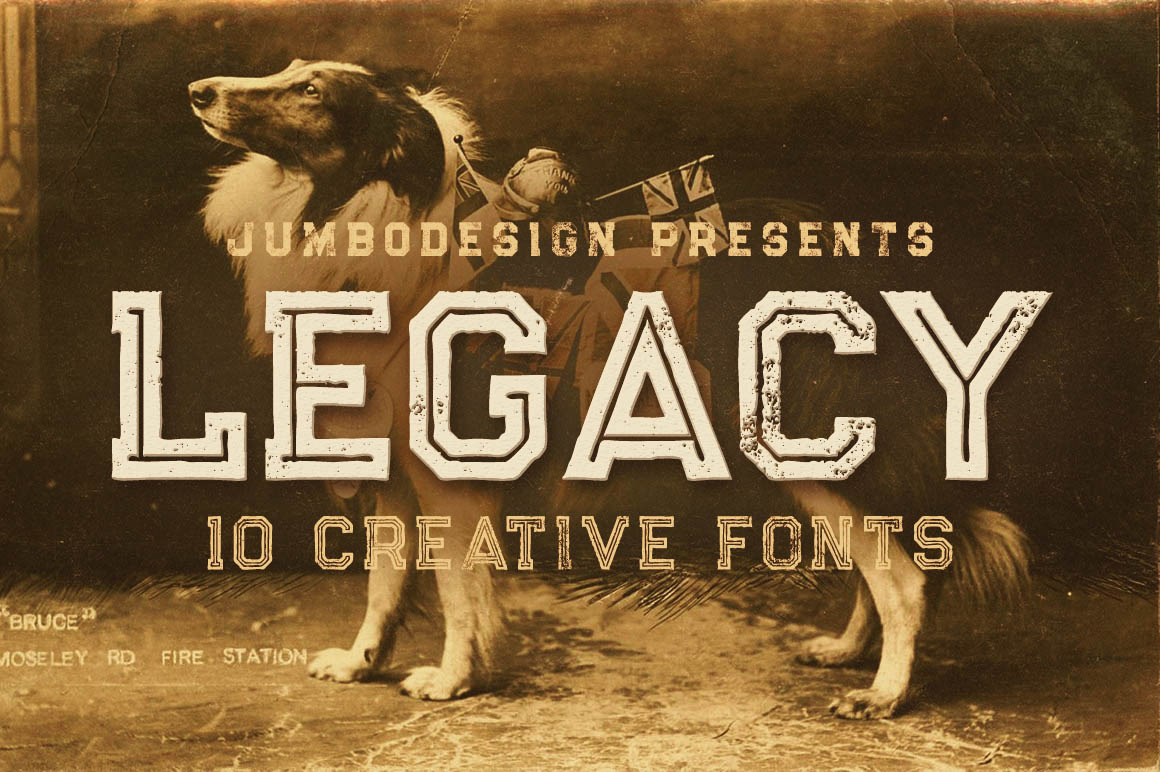
Legacy - Vintage Style Font
Unique and creative vintage style custom font with 10 styles: regular and grunge, inline and inline grunge, outline & outline grunge, outline 2 & outline 2 grunge, outline bold & outline bold grunge